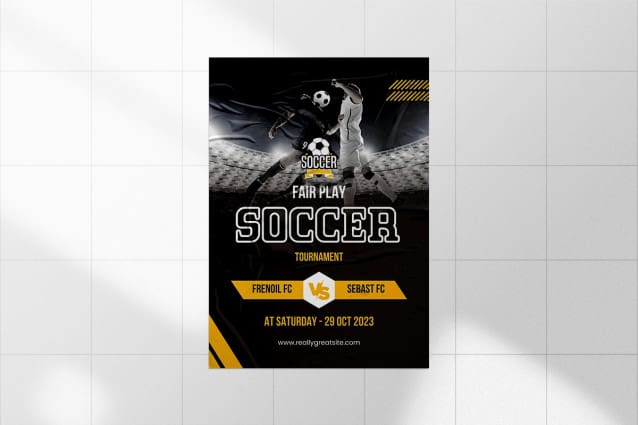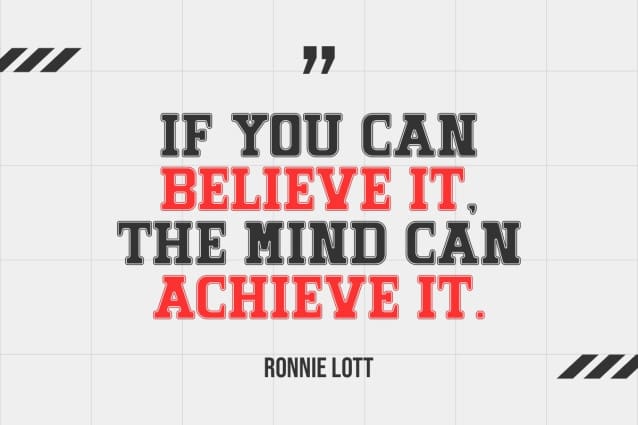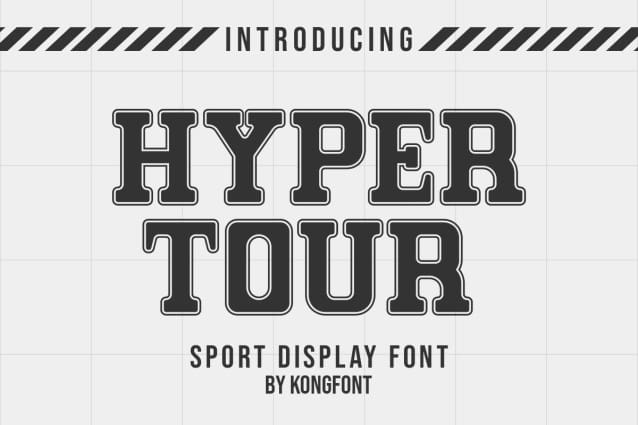
Hyper Tour Font
Hyper Tour Font, is a typeface that shows a modern and sporty impression. Easy to read and distinguishable, this font can serve many uses depending on the user. This font is legible and reaches out to use as large and small text. Hyper Tour Modern Display Font is a modern and stylish font. This font was created to add a variety of sports fonts for many uses.
Hyper Tour Modern Display Font can be used for production digitally and in promotions on the web and social media, as well as in printed forms such as magazines and posters. One of the products that can be combined with this font is sports products such as t-shirts, bags, hats, and logos. Hyper Tour Modern Display Font can use on the sports magazine cover. This font can use as a brand on product packaging and can be applied as a match event font in the posters, costumes, tickets, and merchandise.
In modern business needs, Hyper Tour Modern Display Font is also suitable for business signage that denotes a place, such as a stadium or other sports venue. Headton Modern Sport Font is one of the best fonts to use for fonts.